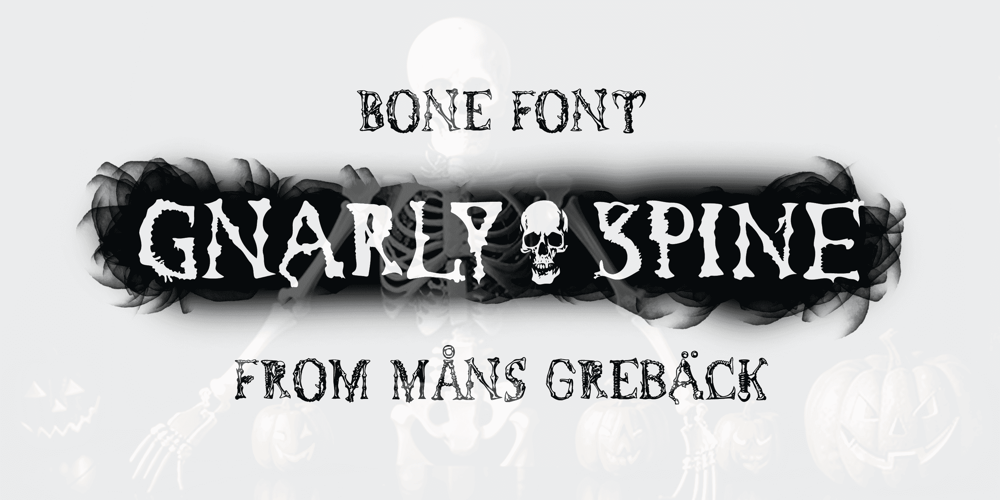
Gnarly Font Family was designed by Måns Grebäck and published by Mans Greback. Gnarly contains 6 styles and family package options. Dipping into the shadowy corridors of design, the Gnarly font family weaves a tale of both intrigue and artistry. Comprising the eerie elegance of Gnarly Bone, the spine-chilling intricacy of Gnarly Skeleton, and the vertebrae-inspired mystique of Gnarly Spine, each sub-family adds its unique touch to the overarching narrative of the collection. Perfect for those seeking a blend of the macabre and the meticulously crafted, this trio of typefaces brings a uniquely haunting aesthetic to any project, from film posters to novel covers.